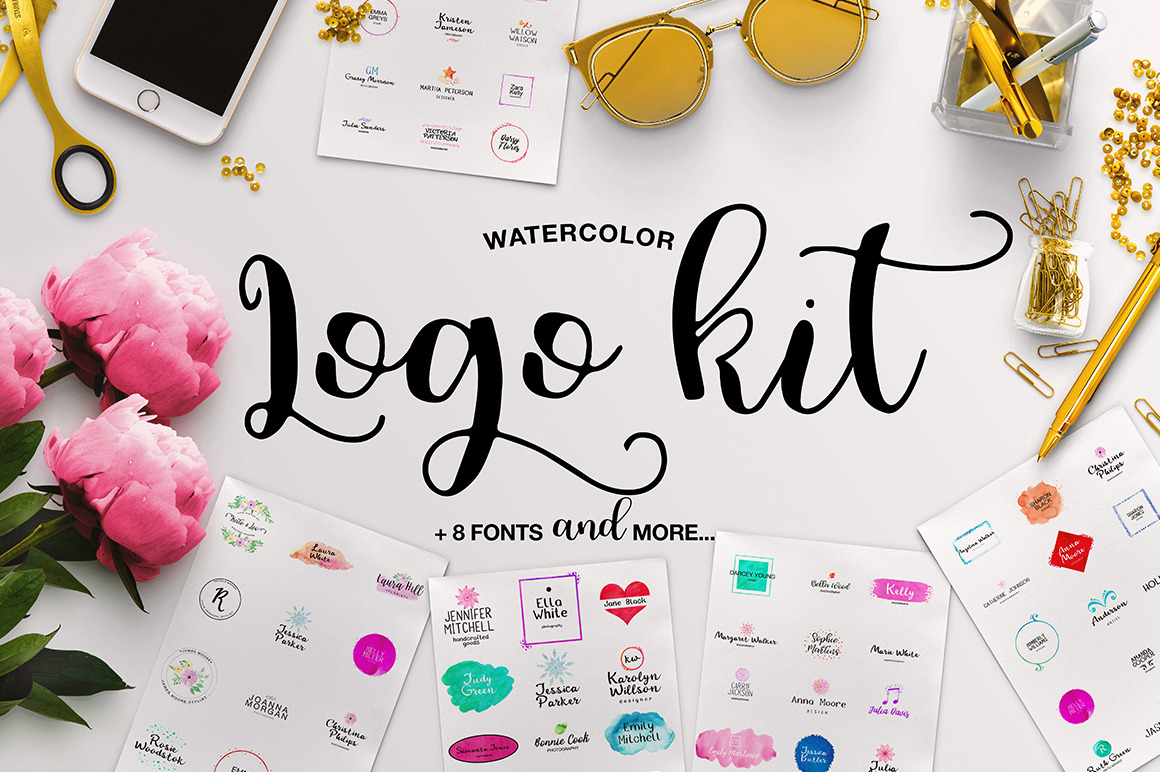
Watercolor Logo Kit + 8 Fonts!
MEET MY NEW COLLECTION WATERCOLOR LOGO KIT!!!
My collection is perfect for logos, branding, wedding invitations, greeting cards, prints, blog banners, apparel, quotes and so much more, but the cool part is that now includes 70 premade logos, perfect for your pretty blog or website!